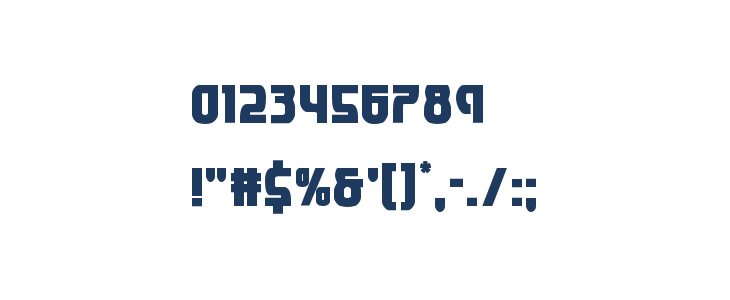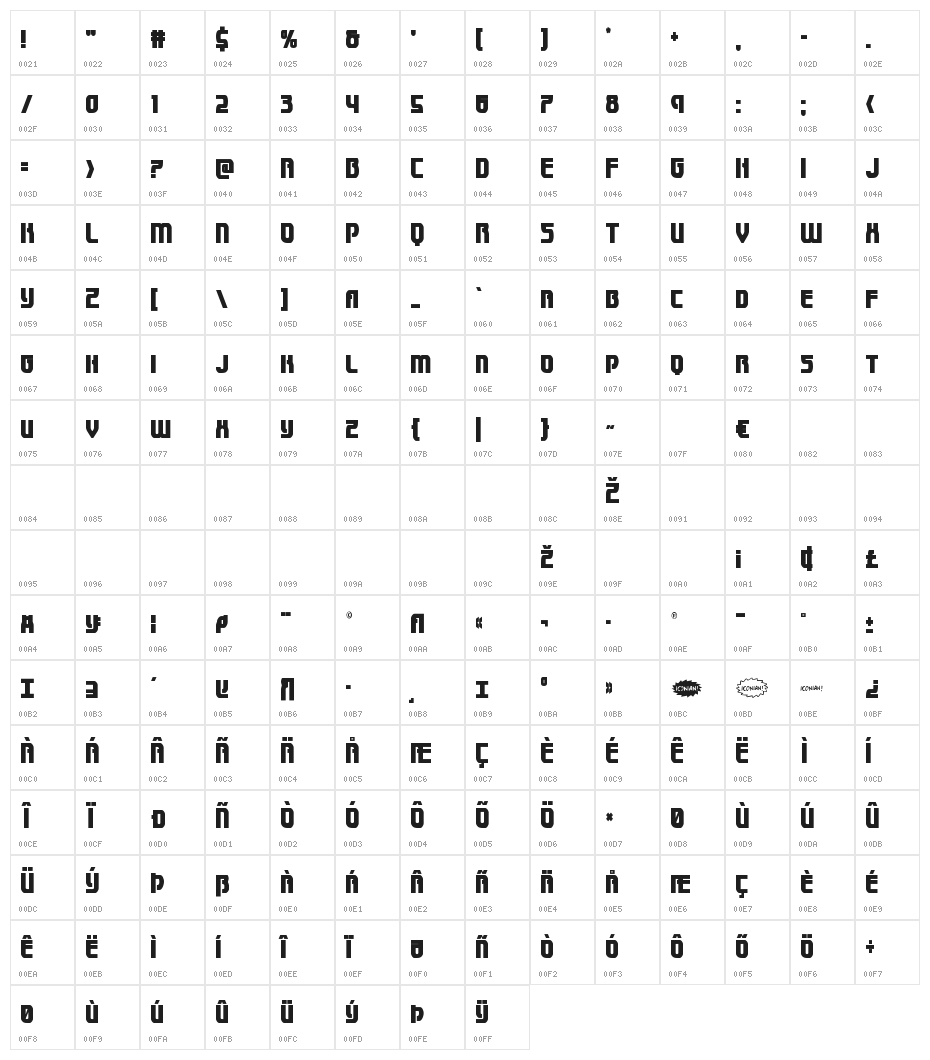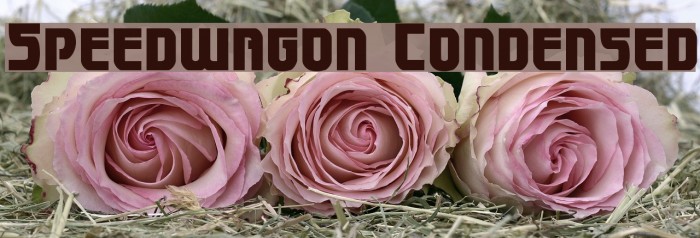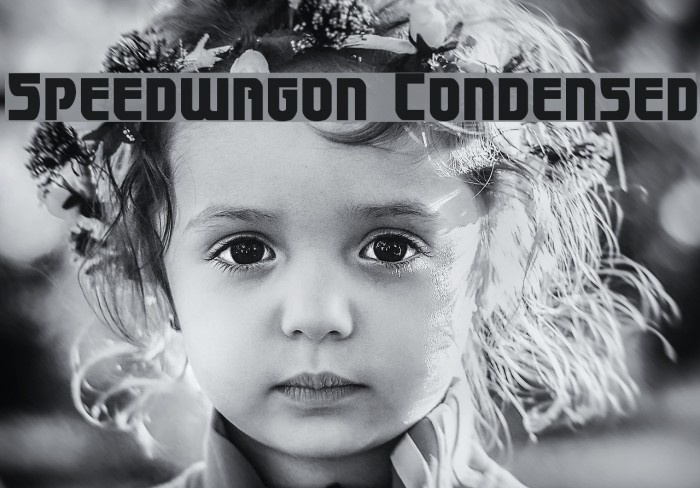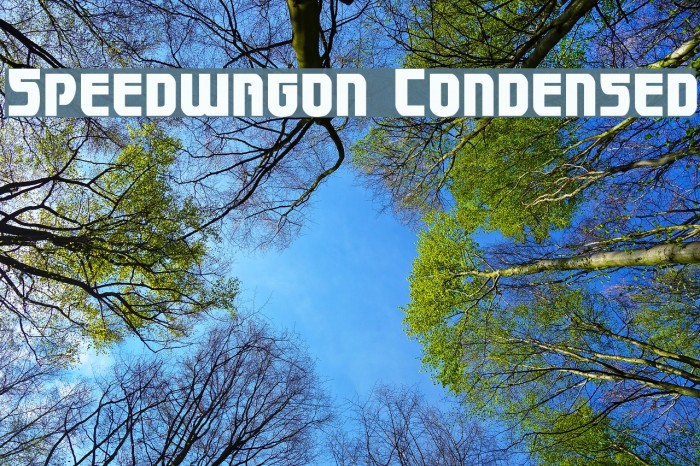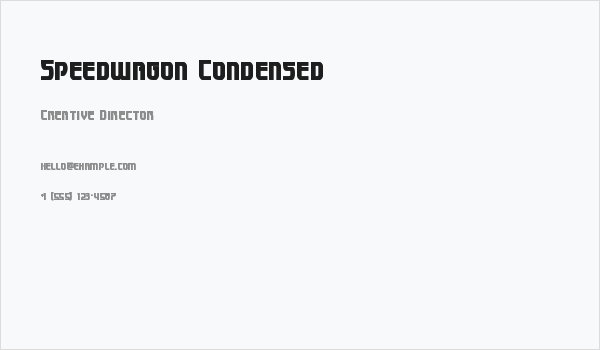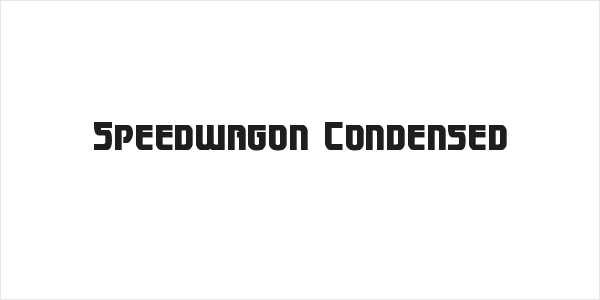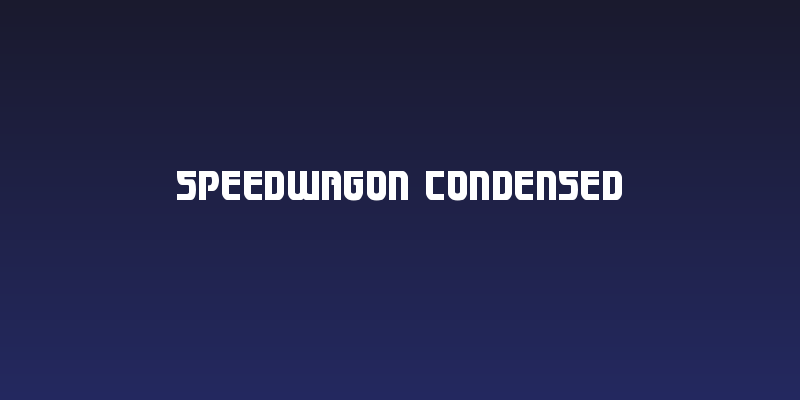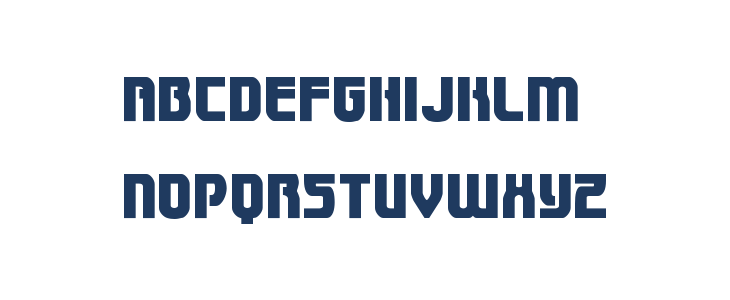
Speedwagon Condensed Font
Speedwagon Condensed Description
This font exhibits a bold and condensed style, characterized by its strong geometric shapes and uniform stroke width. The uppercase letters are particularly striking, with a blocky and robust appearance that commands attention. The lowercase letters maintain the same condensed and bold aesthetic, ensuring consistency across all text. Numbers and special characters are equally bold, making them stand out effectively. The overall design is modern and impactful, suitable for making a strong visual statement.